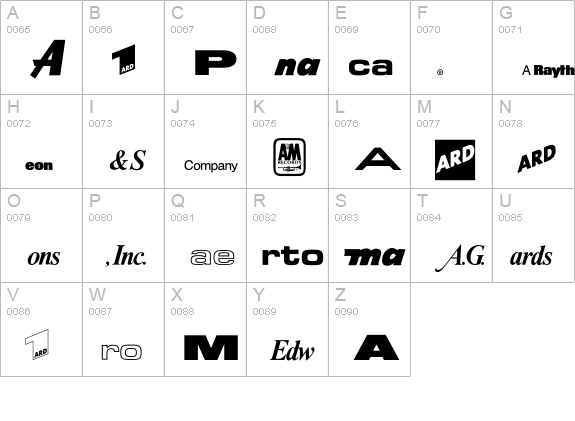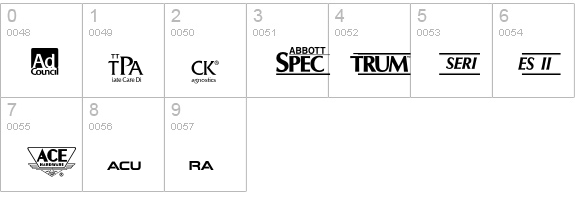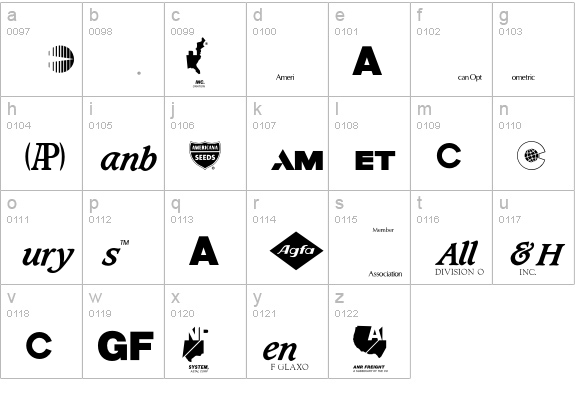
LogosCompanyP01 font is a modern and sleek typeface that exudes professionalism and sophistication. With its clean lines and sharp edges, this font is perfect for creating eye-catching logos and branding materials. The versatility of LogosCompanyP01 makes it suitable for a wide range of design projects, from corporate identities to advertising campaigns. This font is available for free download at FontsMarket.com, making it accessible to designers and creatives looking to elevate their work without breaking the bank. Whether you're designing a new logo for a startup or revamping an existing brand, LogosCompanyP01 font is sure to impress with its crisp and polished appearance. Elevate your designs with this stylish and modern font that will help your brand stand out from the crowd.